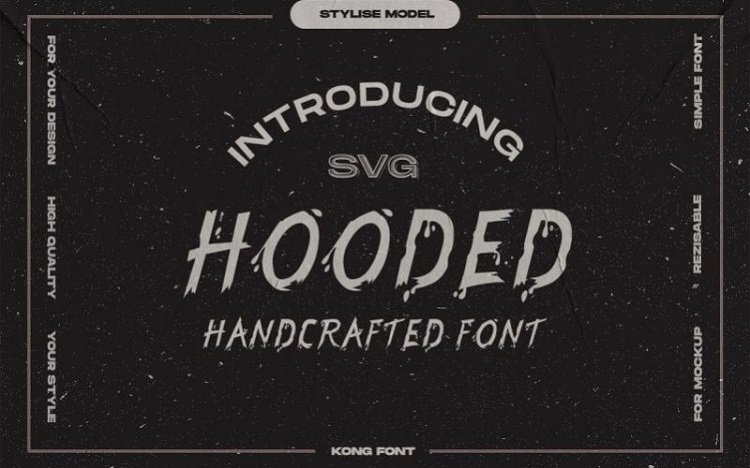
Hooded Brush Font
Hooded brush font with new style, this font will perfect for many different project ex: quotes, logo, blog header, poster, banding, fashion, apparel, letter, invitation, stationery, etc…